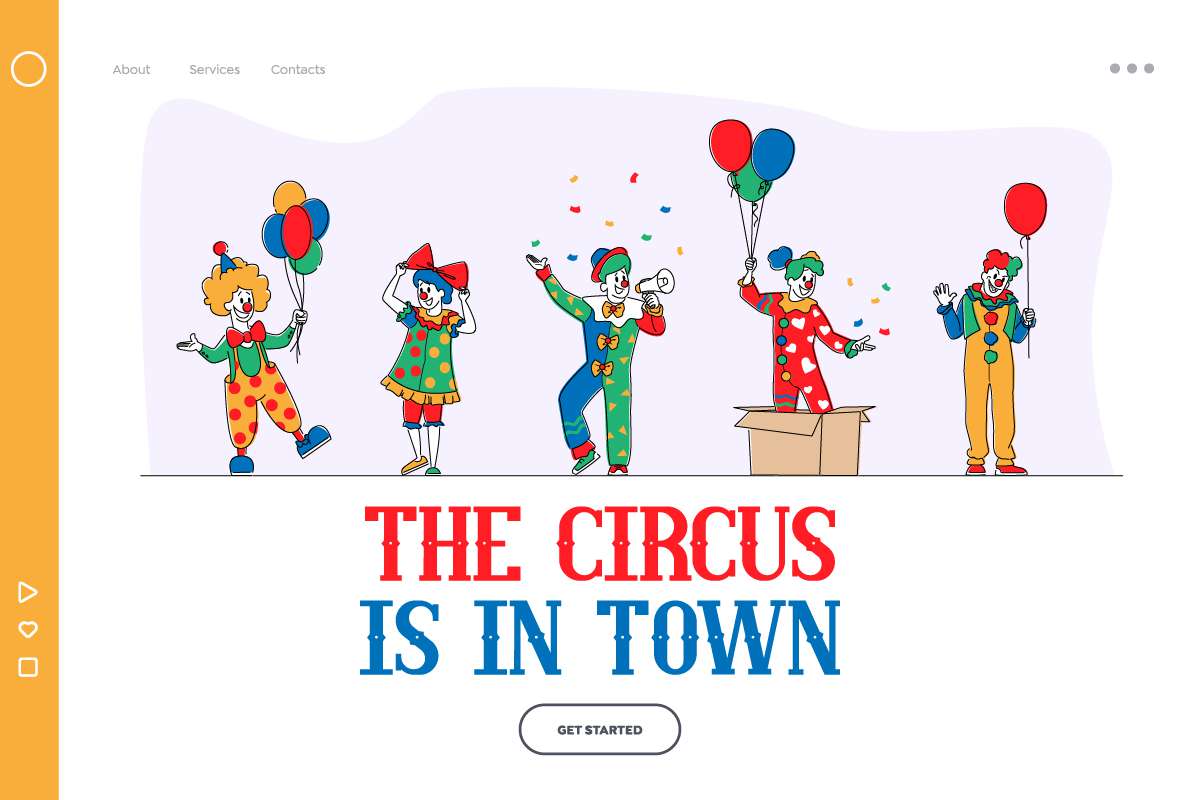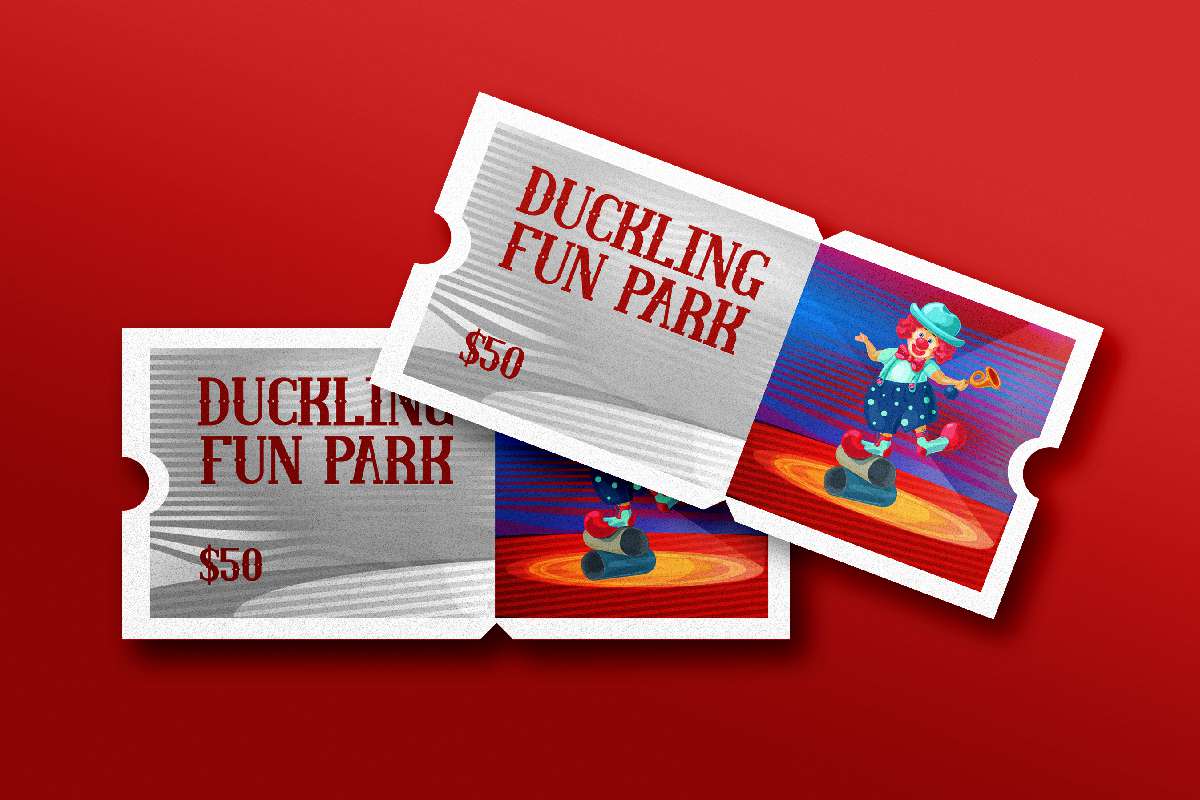
Circus World Font
Circus World Display Font
It’s a unique fancy font with western feel. This font is inspired by circus letters with a classic touch. It has a unique style that will bring the special effect to the design. It will works for circus, comedy snow, branding, logo and any other fun things. Circus World includes full set of Uppercase and Lowercase Basic Characters, Numerals and Punctuation.